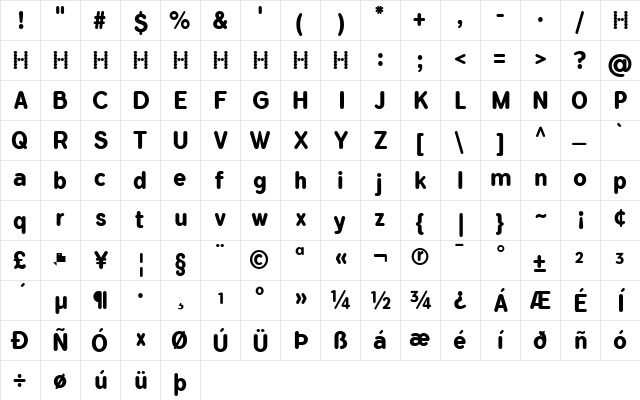
Flamante Round Bold
Design Context for Flamante Round Typeface
Flamante Round softens its letterforms with rounded terminals, giving it an approachable, friendly quality that works well in consumer-facing and digital contexts. Its bold stroke weight gives it real presence on the page.
A natural fit for tech startups, health and wellness brands, children's products, and friendly consumer apps.
Font Pairing: Pairs well with a rounded or humanist sans for body copy, maintaining the friendly tone without relying on Flamante Round to carry extended reading.
Pro Tip: Pair Flamante Round with a geometric sans for a balanced system — the rounded softness works as a warm counterpoint to harder-edged companions.